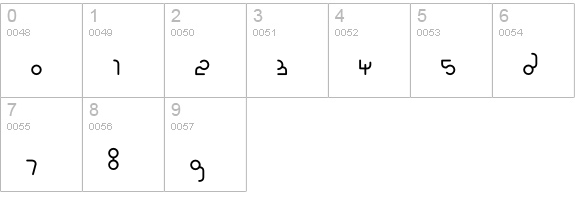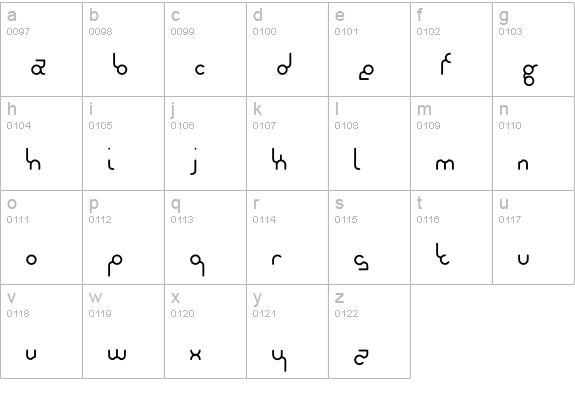
Circuit-Regular is the standard, neutral variant in the Circuit typeface family \xE2\x80\x94 well suited to general body text, paragraphs, and standard typographic work.
Introducing Circuit-Regular font, a sleek and modern typeface perfect for a wide range of design projects. With its clean lines and contemporary style, Circuit-Regular exudes sophistication and professionalism. This versatile font is ideal for creating eye-catching logos, branding materials, website designs, and more. What sets Circuit-Regular apart is its unique blend of elegance and simplicity, making it suitable for both digital and print applications. Whether you're designing a business card or a social media graphic, Circuit-Regular will add a touch of class to your project. Best of all, Circuit-Regular is completely free to download at FontsMarket.com. So why wait? Add this stylish and versatile font to your collection today and elevate your design projects to the next level.